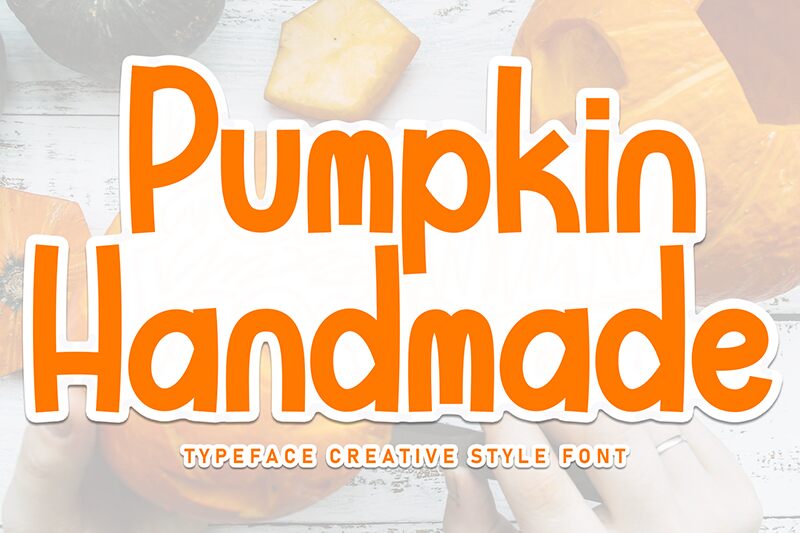
Pumpkin Handmade
Pumpkin Handmade font by Scratchones is a playful and friendly display typeface with a unique hand-drawn feeling. Whimsical and casual, its inspiration comes from modern usage in craft branding or children’s items. This free quirky font captures a cheerful tone that will instantly add warmth to any design.
Explore this font for book covers, posters, invitations, headings, signs, labels, logos, packaging designs, social media posts & stories lettering or quotes. Integrate it into branding or any other personal project where you think its magical appearance would be charming!